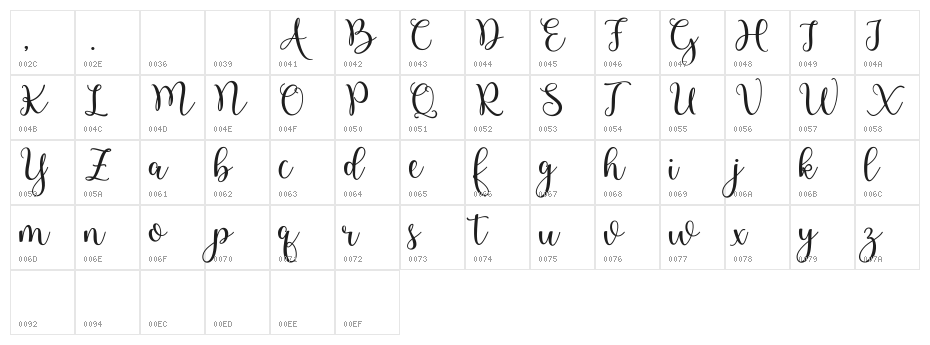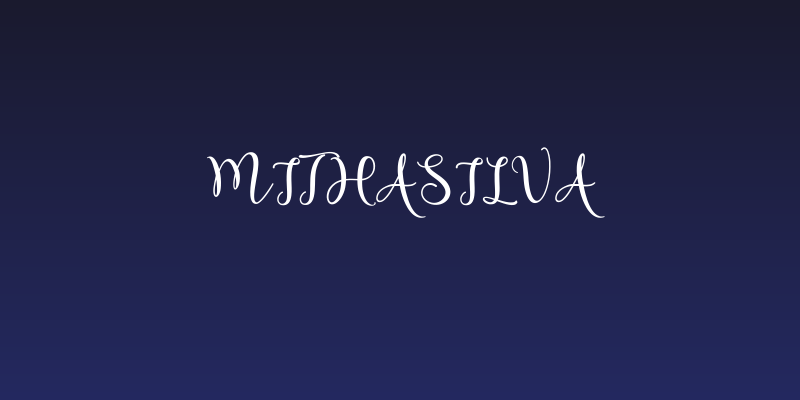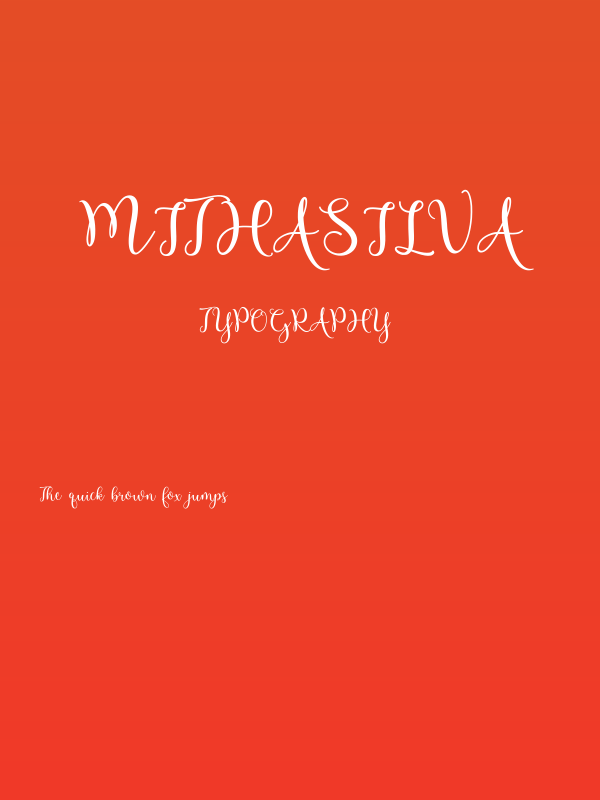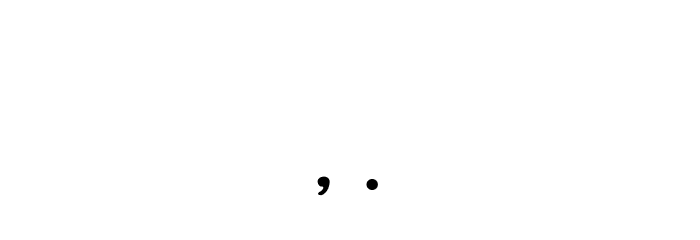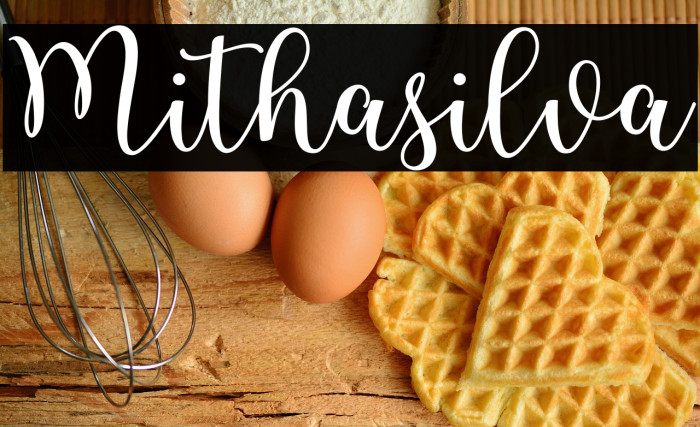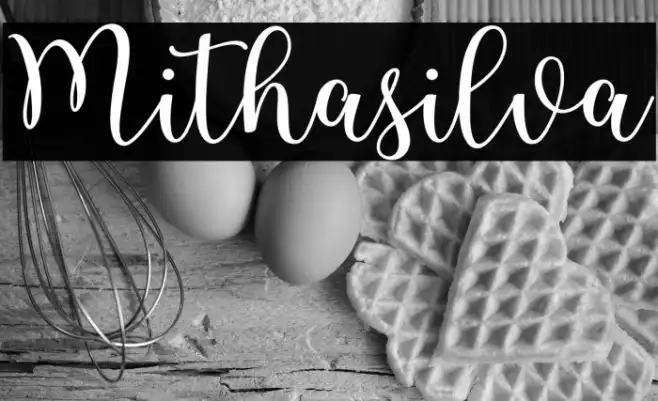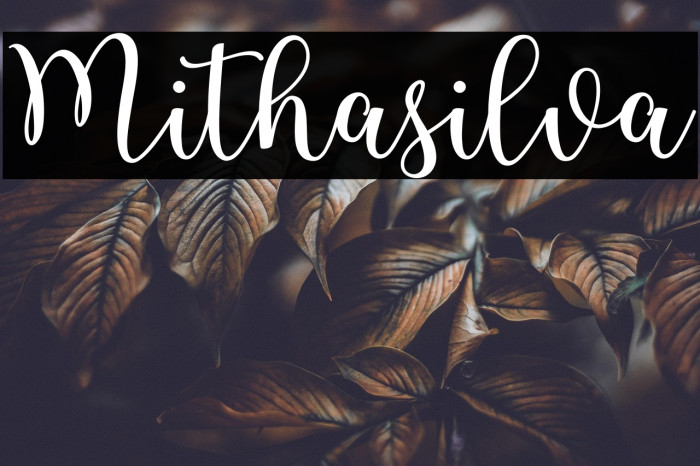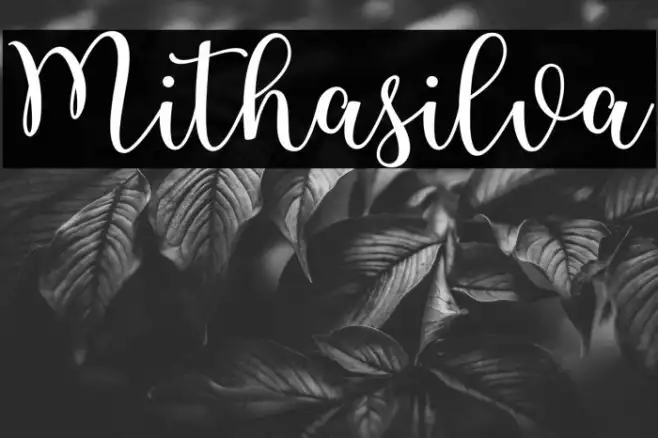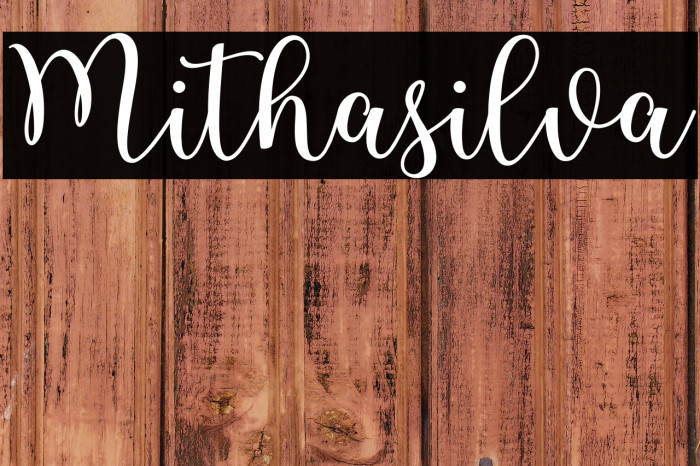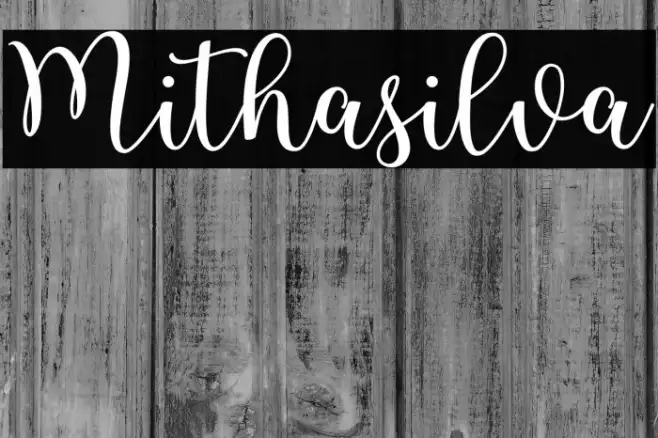
Mithasilva Font
Mithasilva Description
This font features an elegant and flowing script style, characterized by its graceful curves and loops. The uppercase letters are ornate, with a distinct flair that adds a touch of sophistication. The lowercase letters maintain a consistent fluidity, enhancing readability while preserving the decorative nature. The font's design is reminiscent of traditional calligraphy, making it suitable for formal and creative applications. Its overall appearance is both classic and contemporary, offering versatility for various design needs.
| Proposed Projects | Ideal for wedding invitations, greeting cards, branding, and elegant packaging designs. |